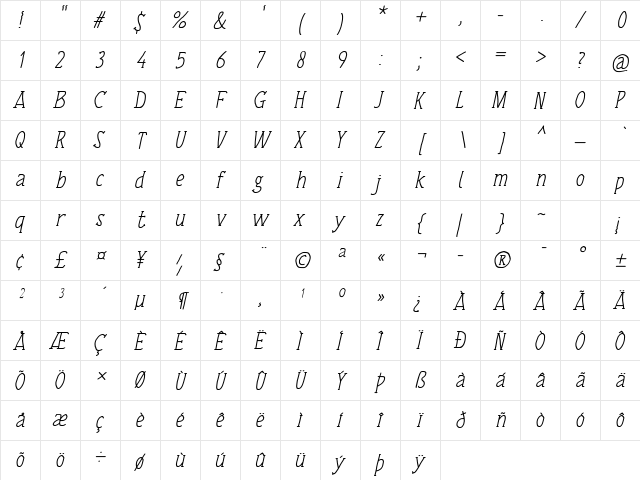
Tulisan Tangan 74 Italic
Design Context for Tulisan Tangan 74 Typeface
Tulisan Tangan 74 takes a measured approach to typography — its balanced proportions and neutral character make it a reliable workhorse for both digital and print work. The dynamic lean of this cut emphasises speed and emphasis in any layout.
Pro Tip: Use Tulisan Tangan 74 for emphasis, pull quotes, and subheadings where its slanted energy can add rhythm to the layout.